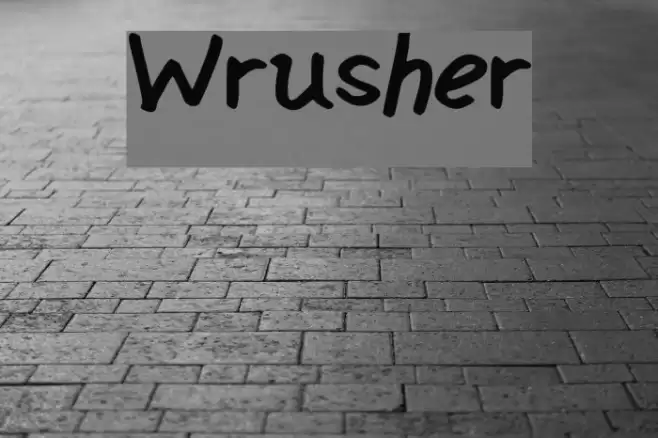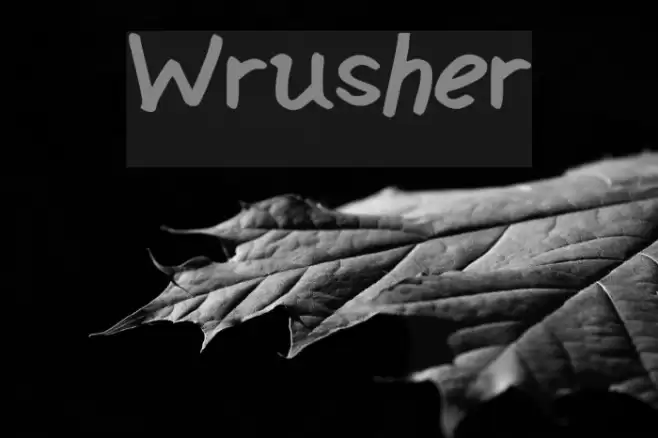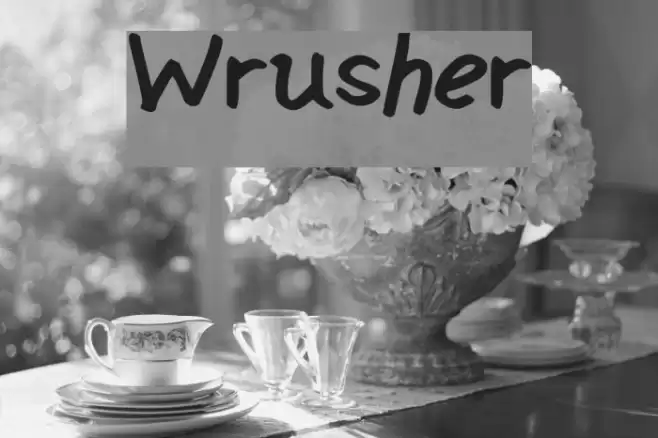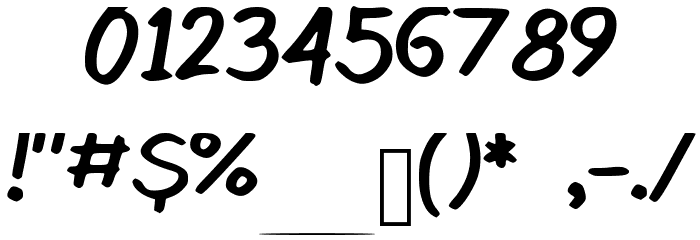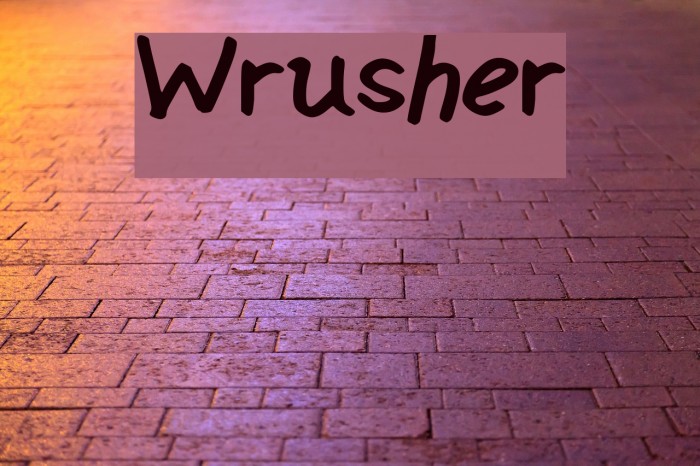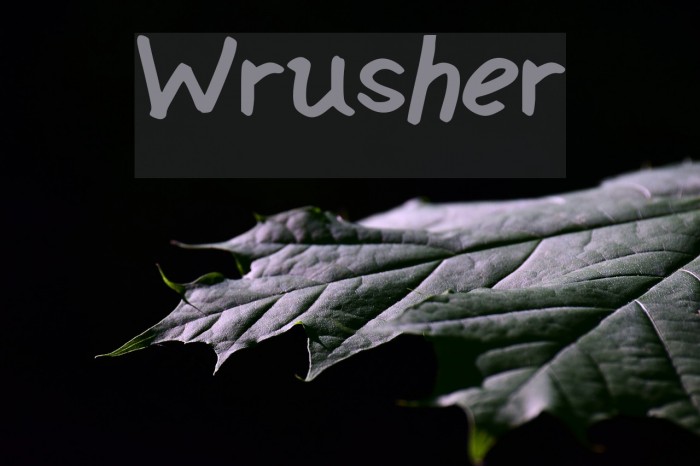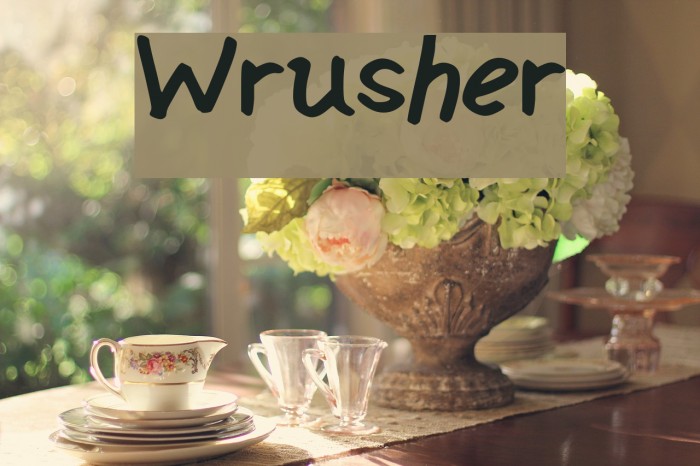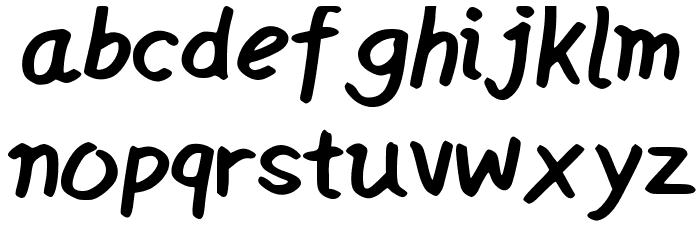
Wrusher Font
Wrusher Description
This font exudes a playful and dynamic energy, characterized by its handwritten style that mimics the fluidity and spontaneity of casual script. The letters are slightly slanted, adding a sense of motion and informality. The strokes are bold and consistent, providing a strong visual presence without sacrificing readability. The rounded edges and smooth curves contribute to a friendly and approachable aesthetic, making it suitable for projects that require a personal touch. The numerals and special characters maintain the same lively style, ensuring consistency across all text elements.
A playful, handwritten-style font with bold strokes and a dynamic slant from Uncategorized fonts.
- Proposed Projects: Ideal for greeting cards, playful branding, children's books, and casual invitations.
- Overall Style: Casual
- Use Case: Headlines, Logos, Informal Text